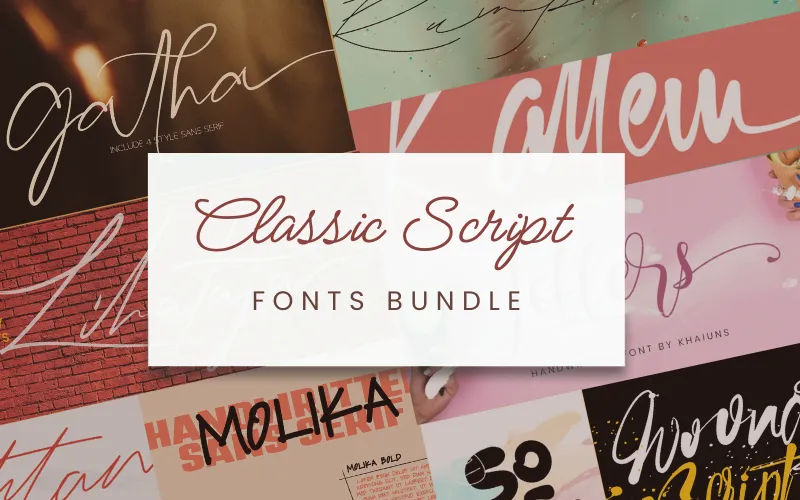
Finding stylish, versatile fonts shouldn’t be a long search. The Classic Script Fonts Bundle brings you 11 carefully designed script fonts that combine brush, calligraphy, vintage, and retro aesthetics — perfect for branding, advertising, wedding stationery, social media, logos, and more.
- Gatha Script — graceful, feminine handwriting for delicate designs
- Kallem Script — smooth, elegant modern script for classy branding
- Kloftel Script — original, powerful lettering with dynamic nuances
- Lihataja Script — minimalist brush lettering with a textured finish
- Loffers Script — fun, playful brush script with creative charm
- Lovtony Script — thin, flowing signature-style with refined nuances
- Mightam Script — luxurious modern italic with stylish curves
- Molika Script — bold typeface with unique character and strong appeal
- Ohh Script — strong, rounded, playful typeface for friendly projects
- Sattin Script — classic, stylish script with timeless elegance
- Woonder Script — bold, expressive brush lettering for striking designs
- Special characters included: alternates, ligatures, swashes, glyphs
- Categories / Types: Script, Display, Calligraphy — Brush, Texture, Vintage, Retro styles